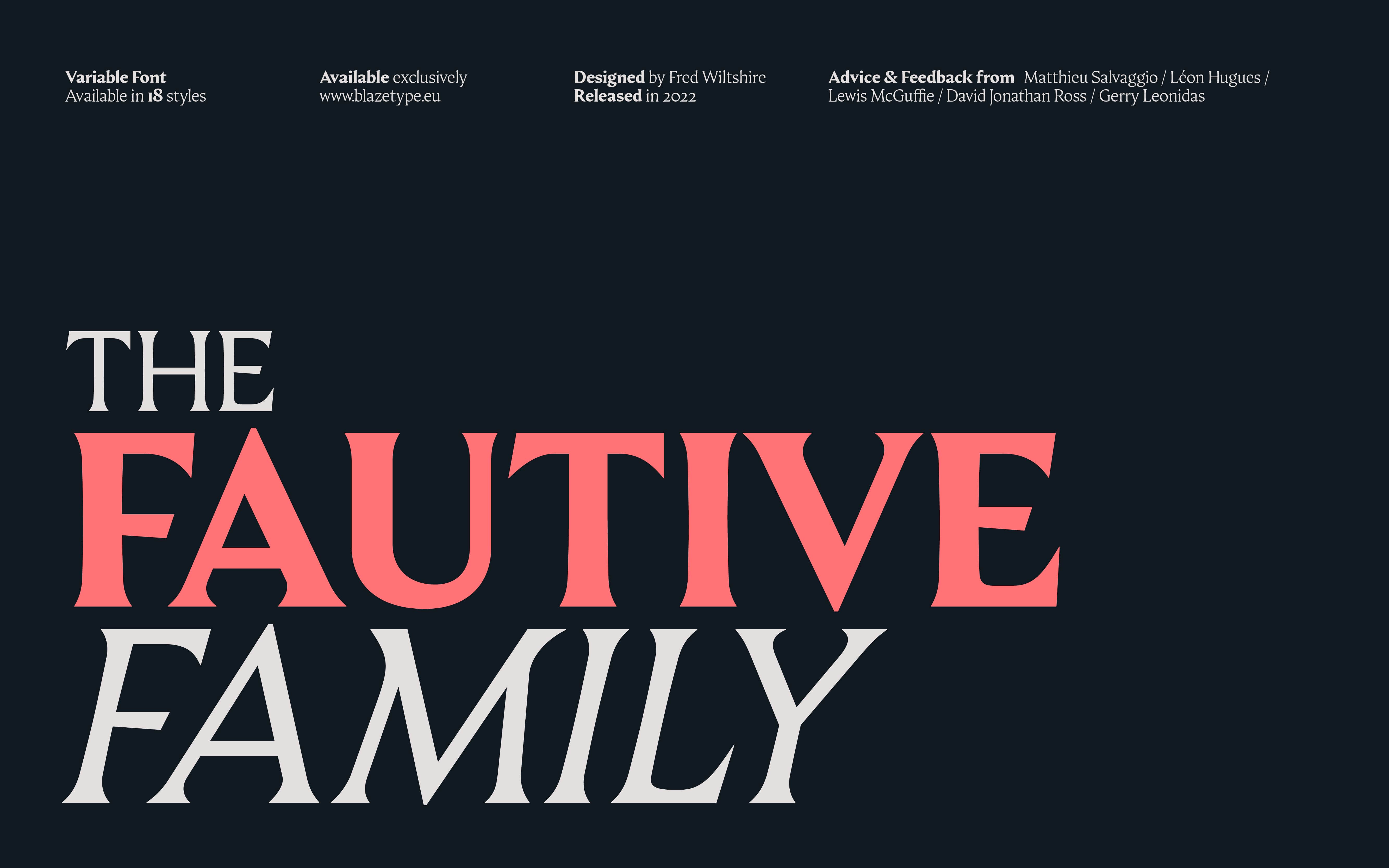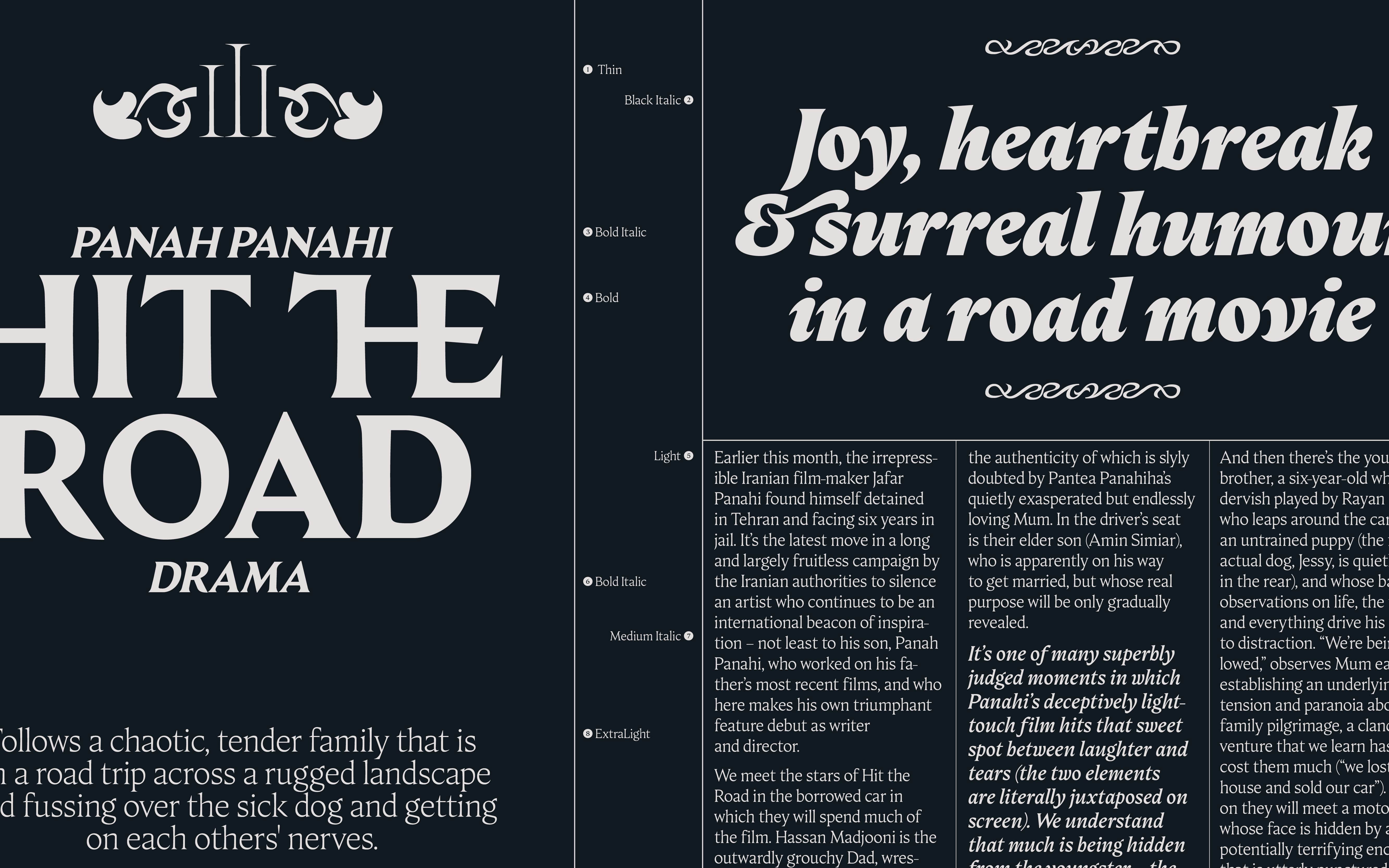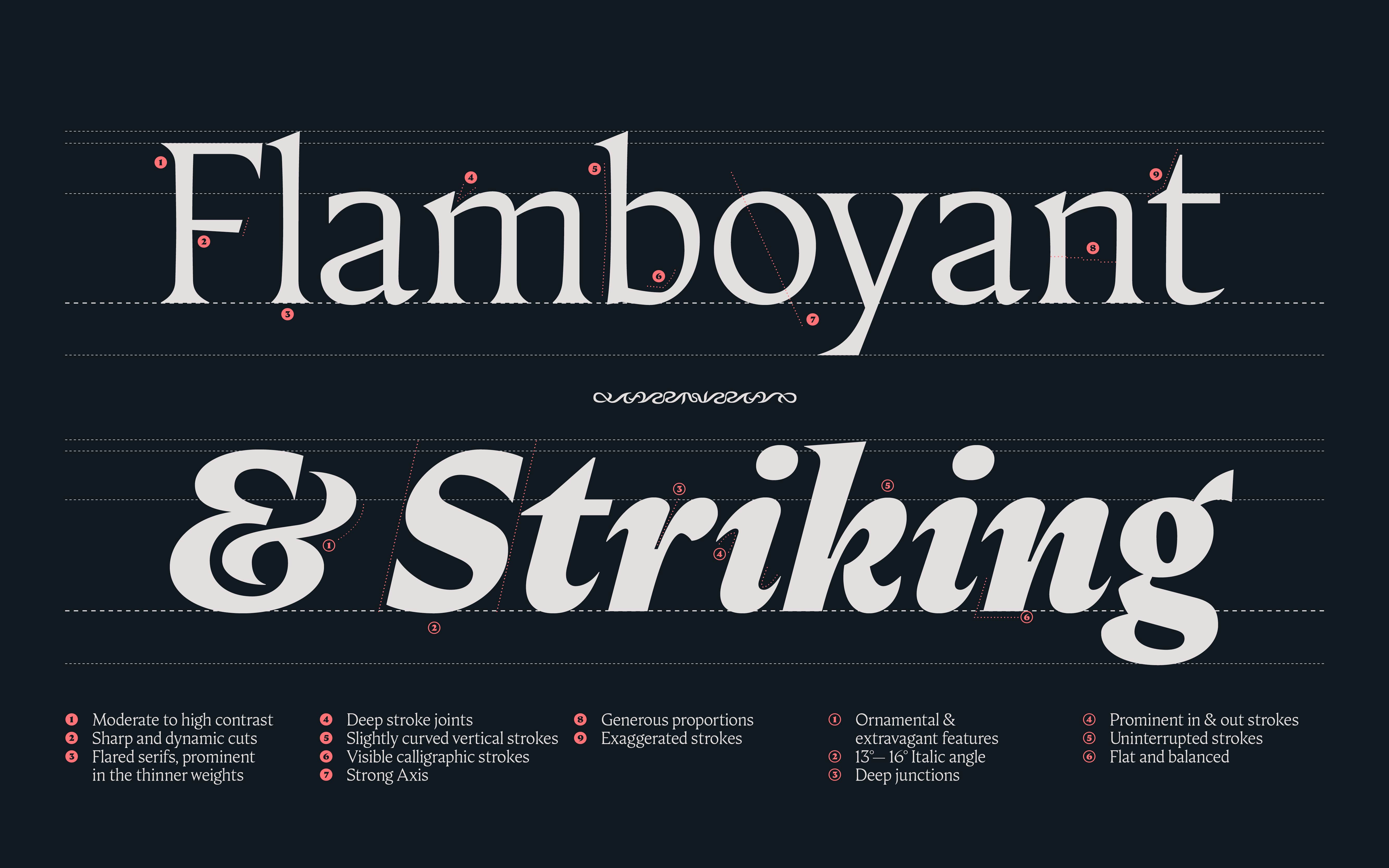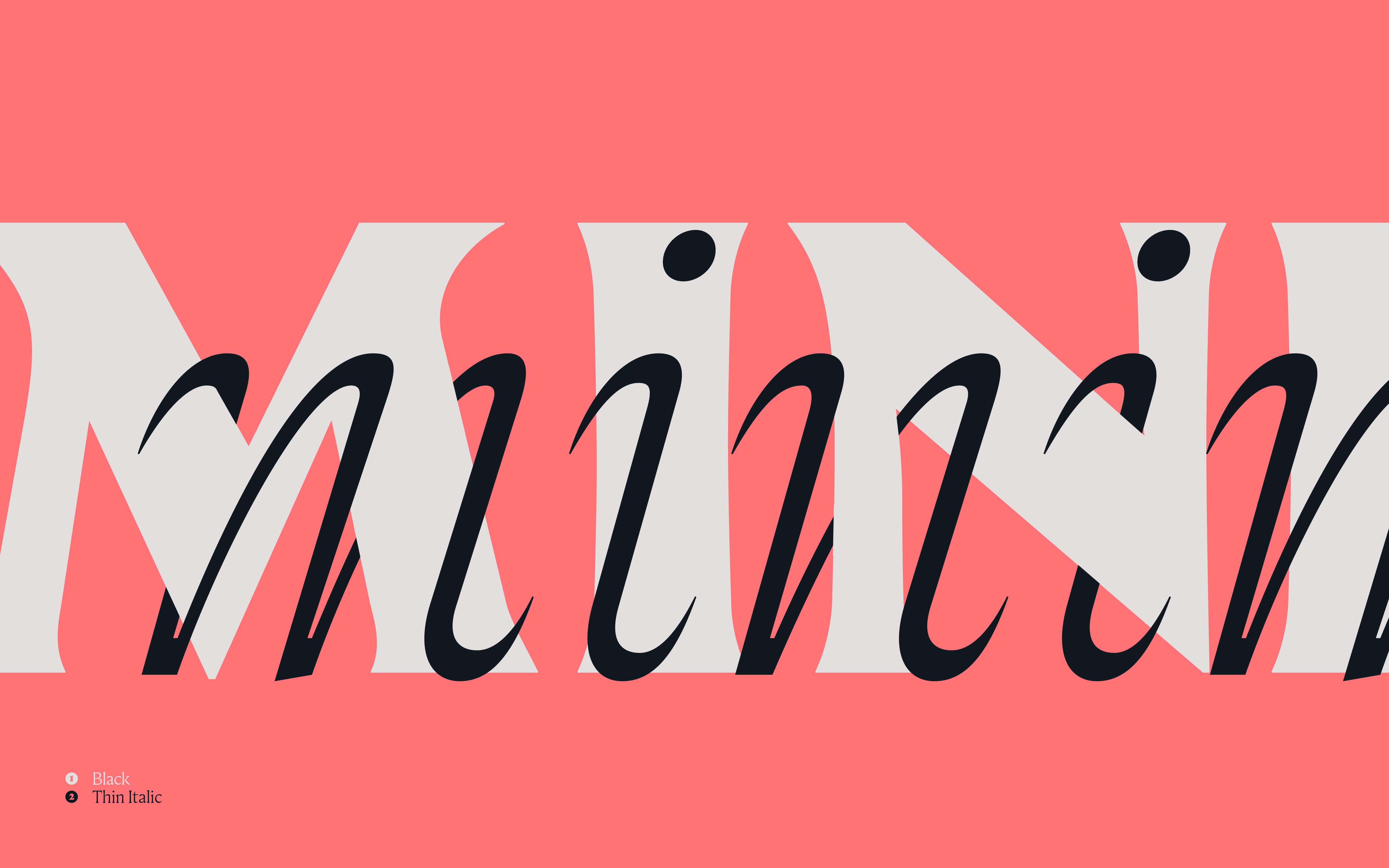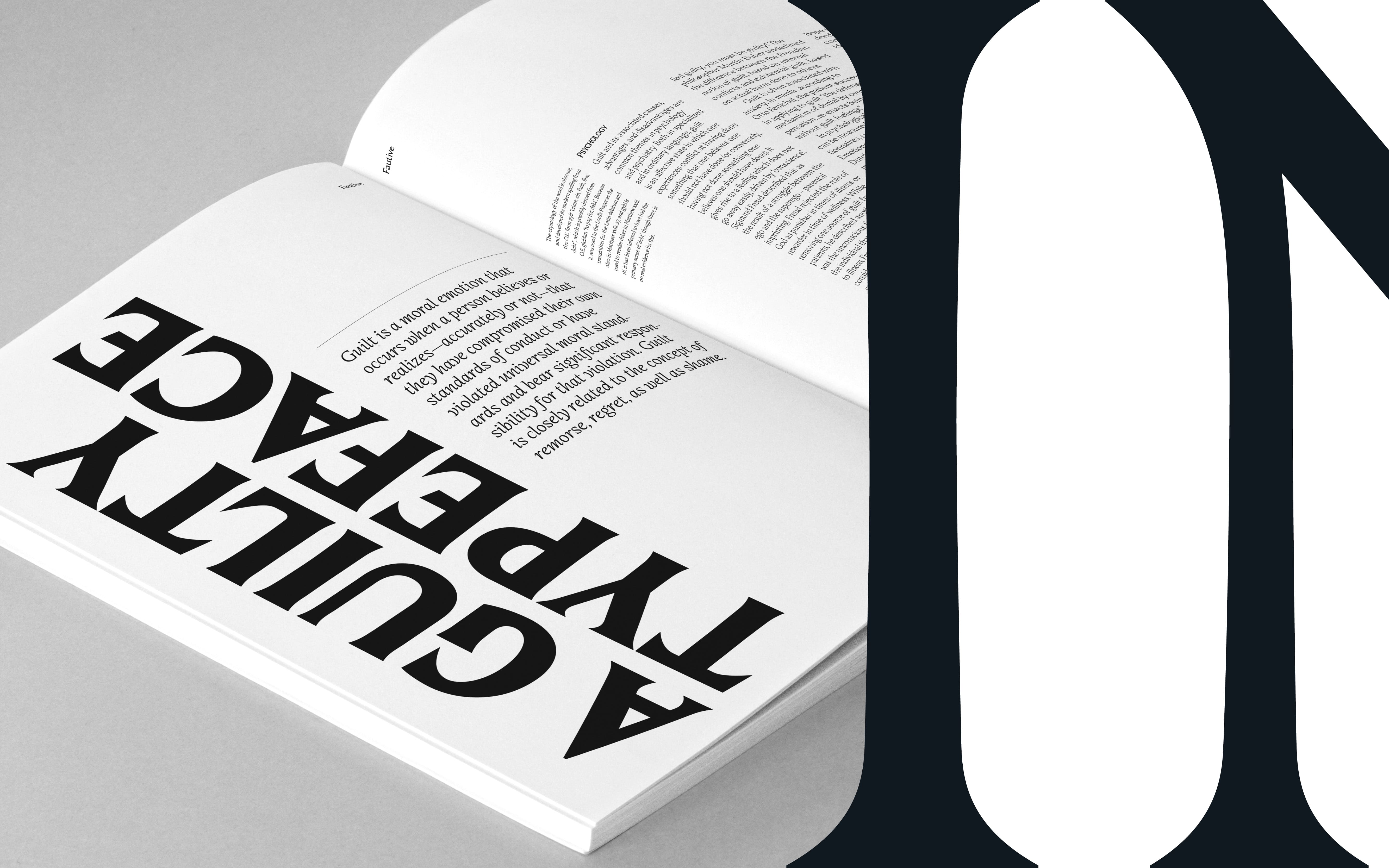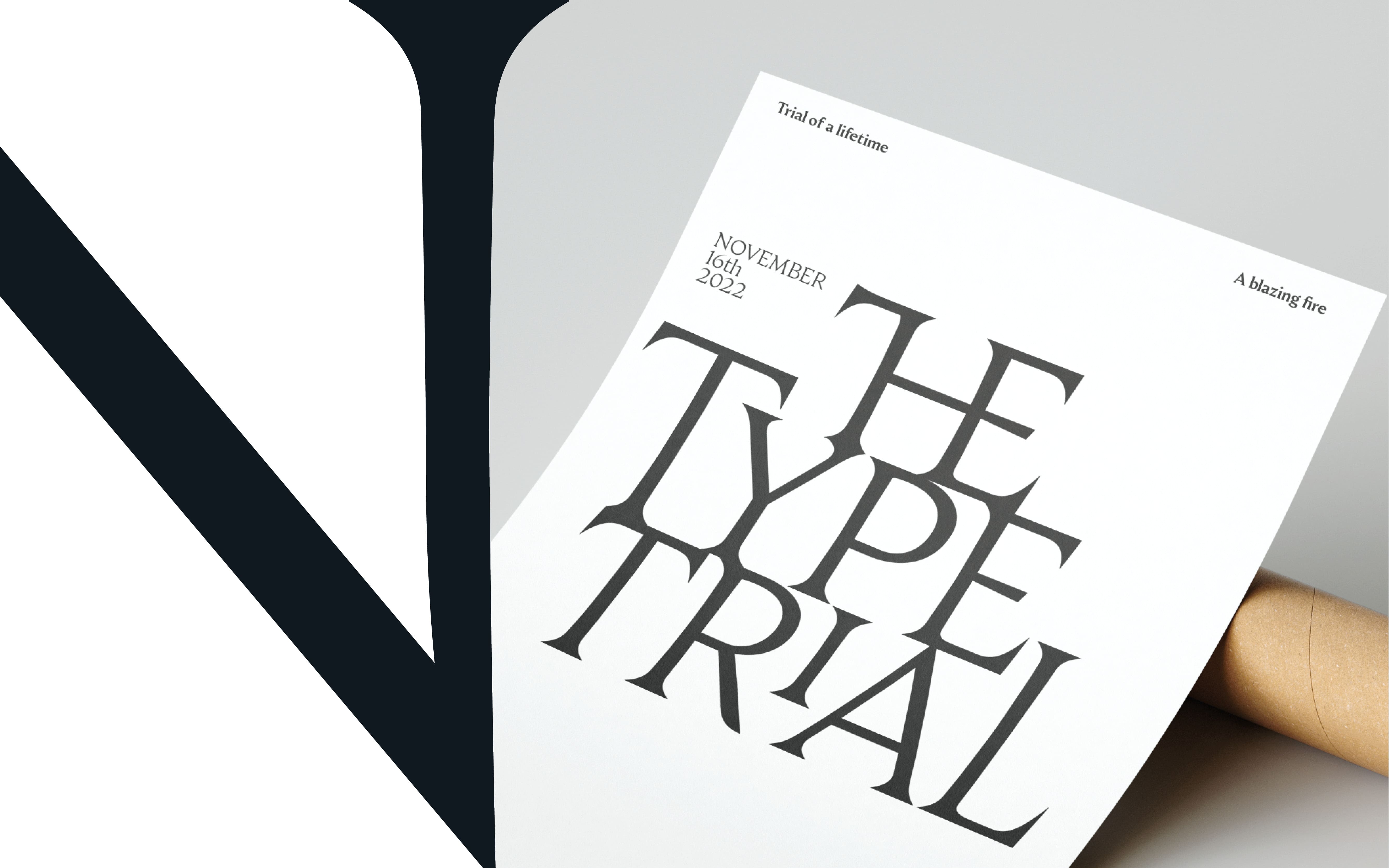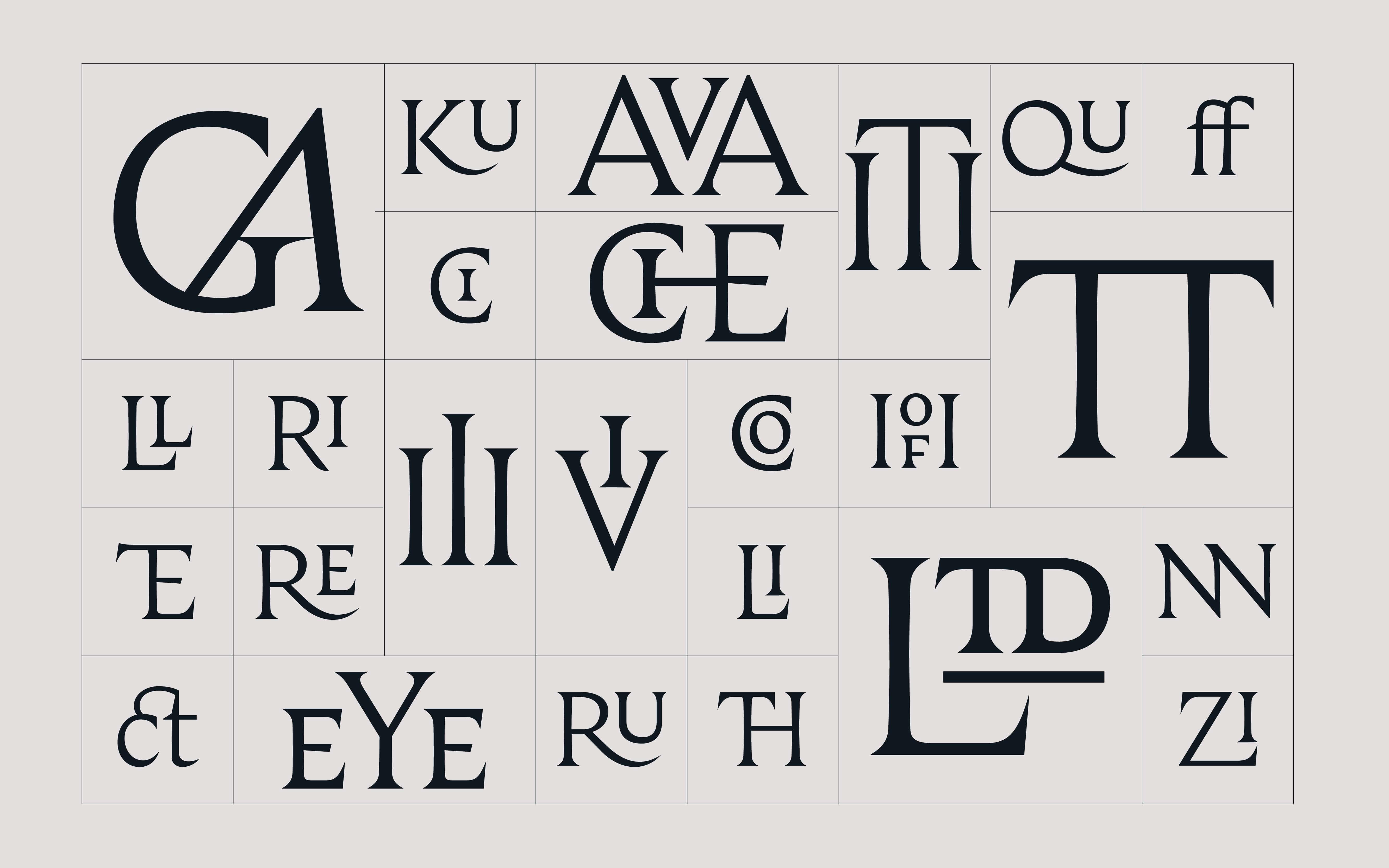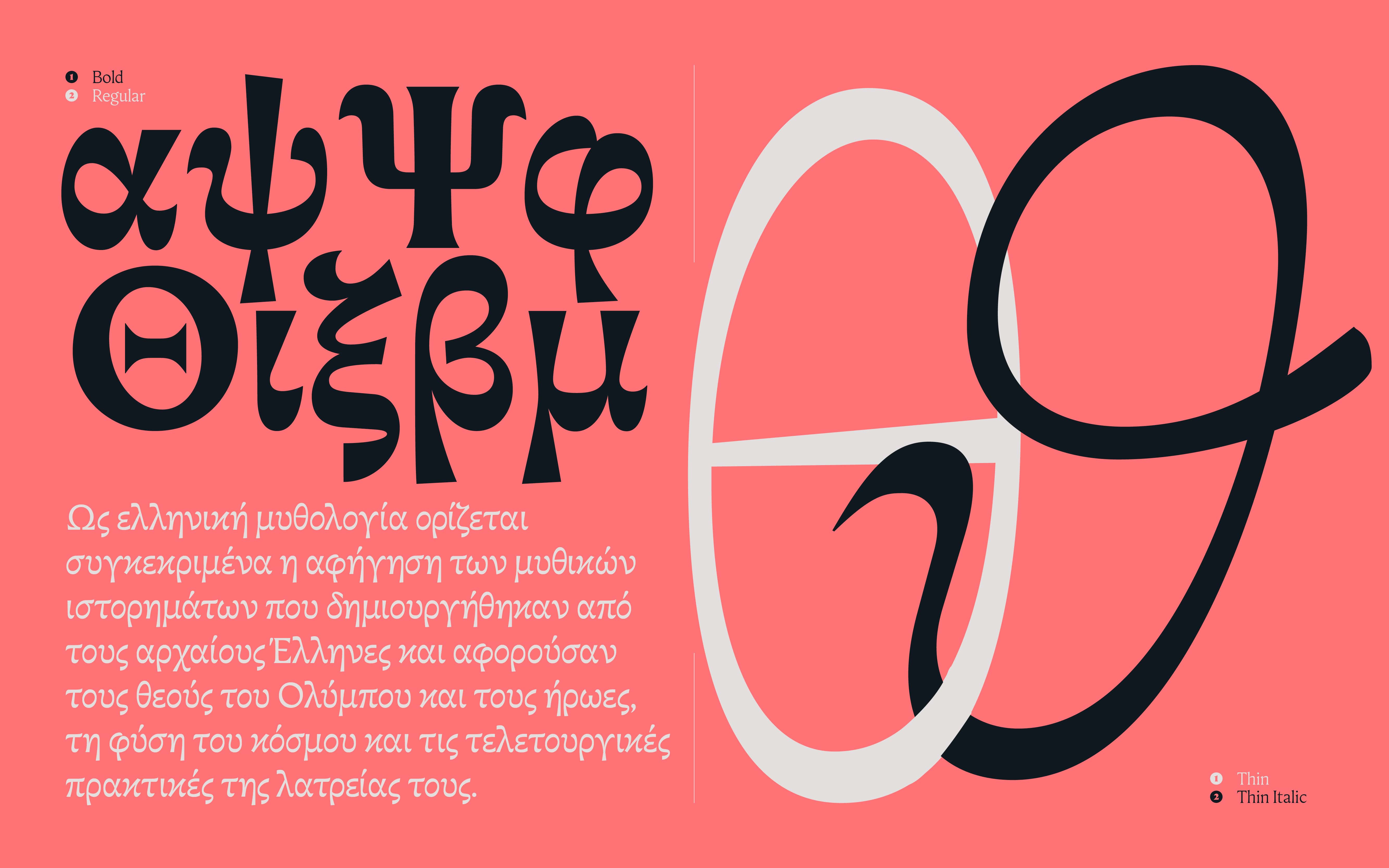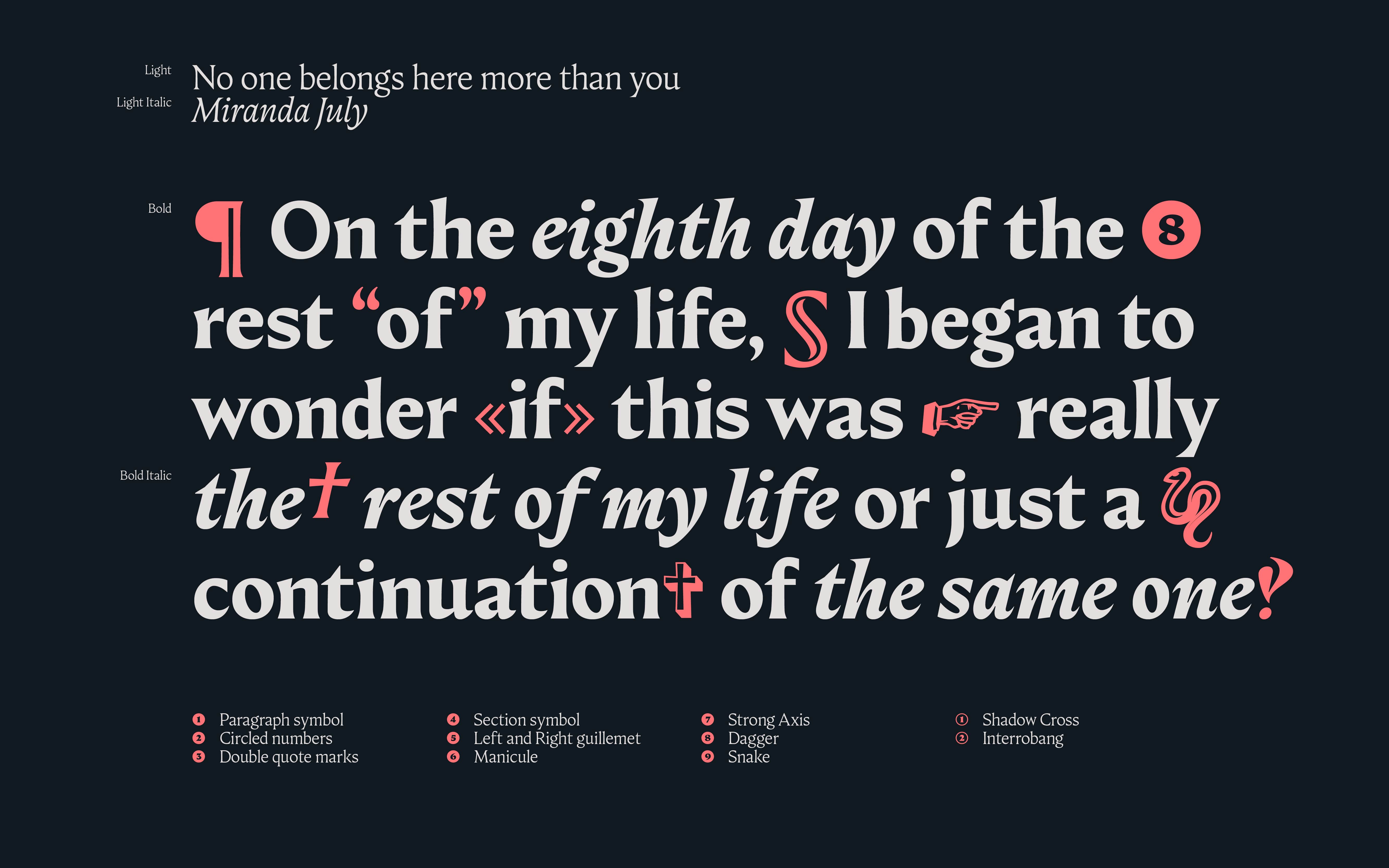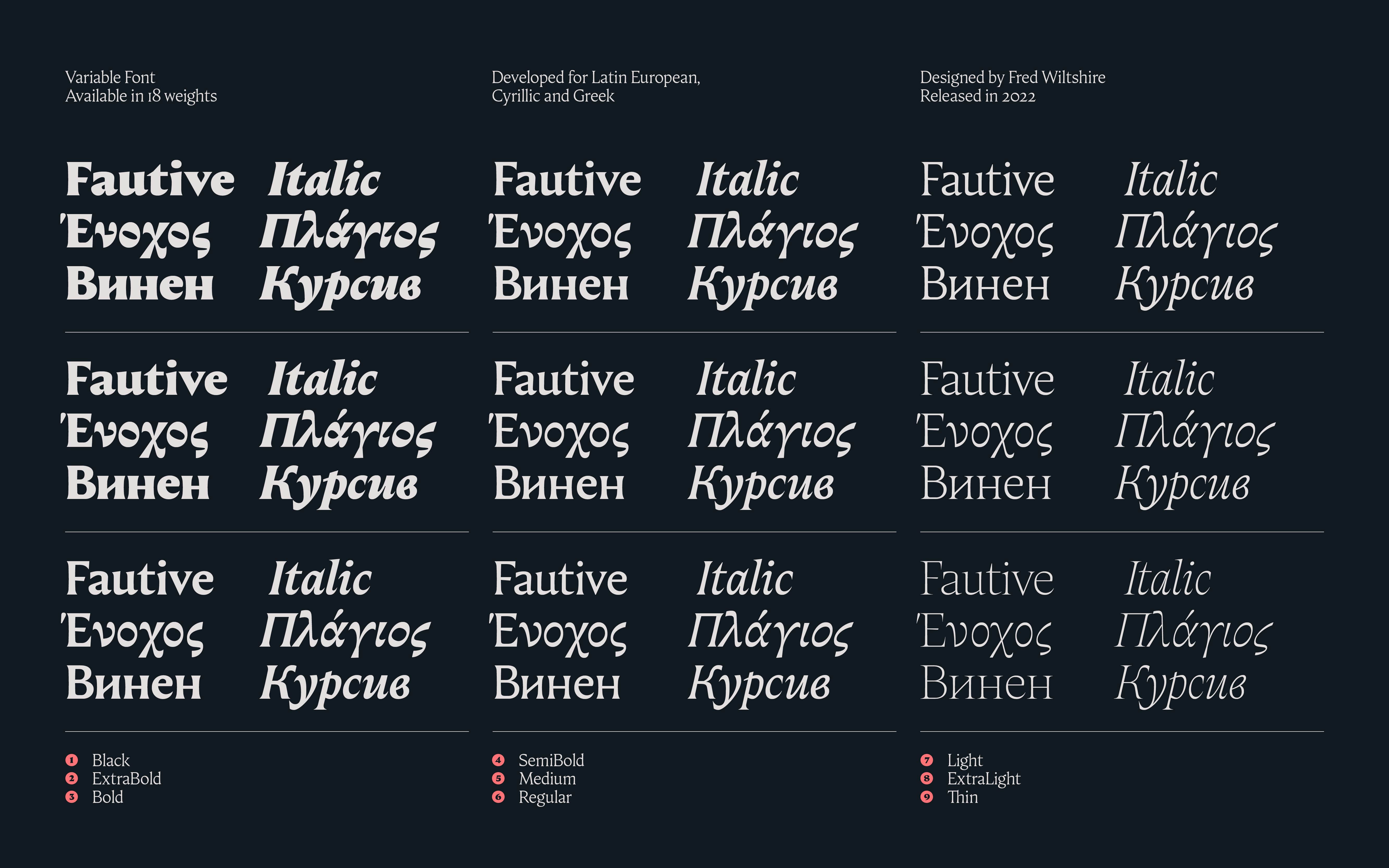
Fautive
Fautive is a dynamic and lively serif, imbued with an exaggerated personality and a playful appearance. Originally based around the work of Louis Perrin, Fautive has grown into a sharp and playful typeface with 18 flamboyant styles. Each style is crafted with elegant and intricate details made to captivate the reader. It also comes equipped with Cyrillic, Greek and extended Latin. Each font comes with a large selection of extravagant and exaggerated ligatures, alternates, modular ornaments, a handful of illustrations and a snake. The lighter weights accentuate any flourish or movement found in the regular, whereas the bold softens these features. The italic counterparts follow a similar aesthetic, retaining that playfulness of the characters while containing more calligraphic features. Fautiveʼs exaggerated characteristics are perfect for editorial use, primarily for medium to large scale display settings, but the regular style performs well for longer paragraphs of text. With all of Fautiveʼs playful quirks and features, the user should be able to create exciting and lasting designs. This large font family will do wonders when used on any material where text is a key element: whether it be display, headline, text and even caption on posters, websites, books and so on.
Fred Wiltshire
Latin European, Cyrillic and Greek